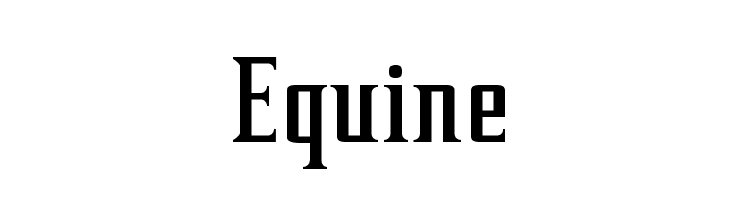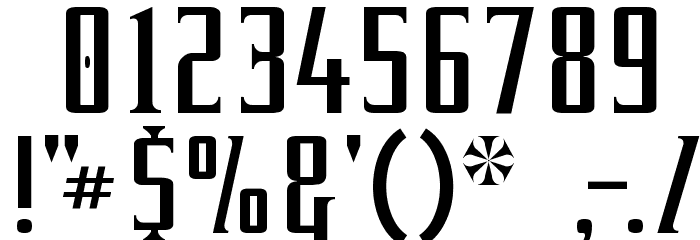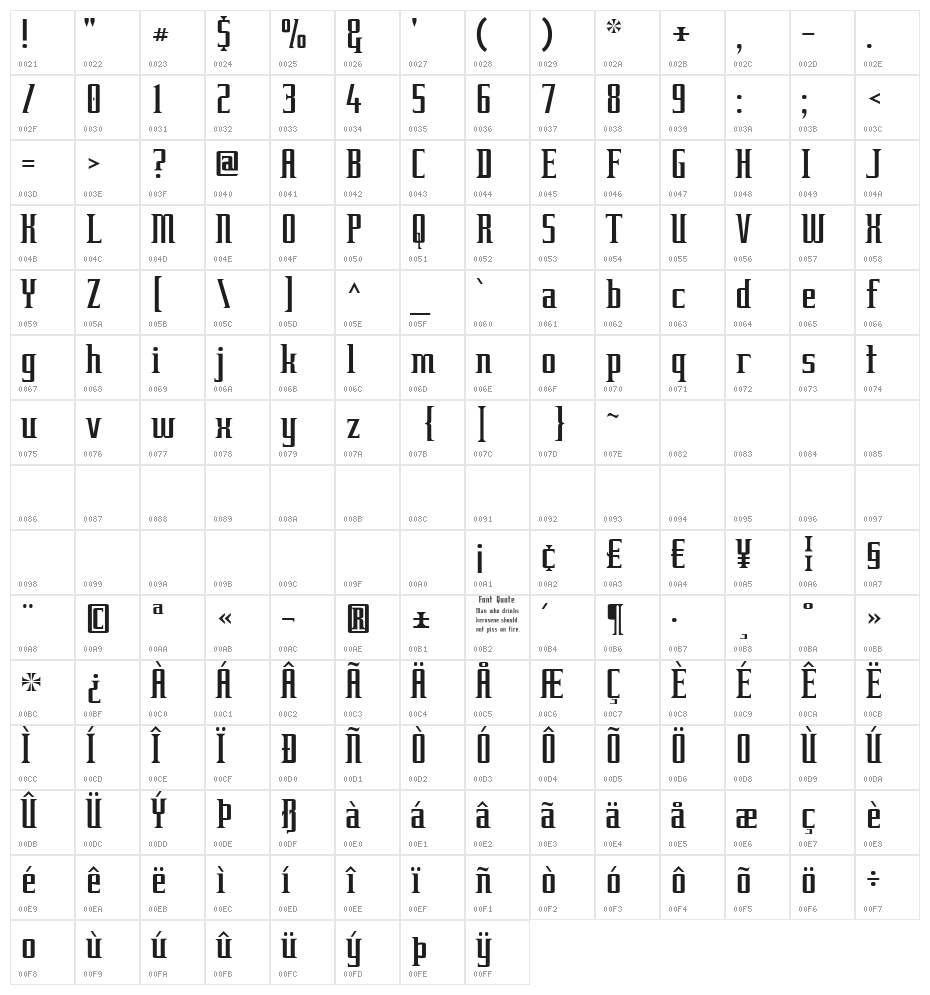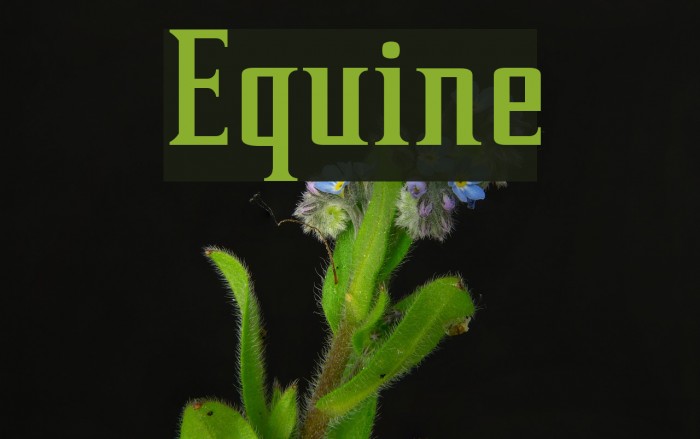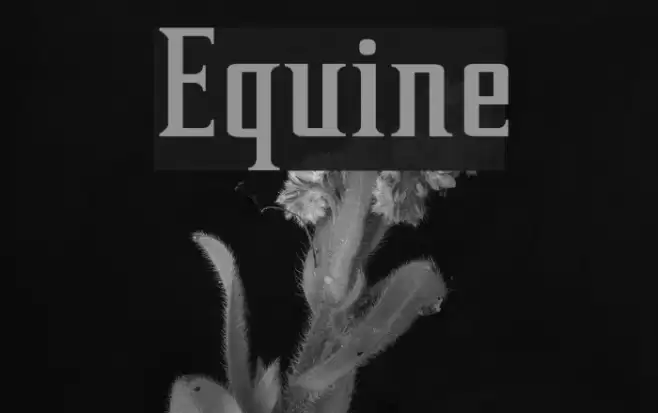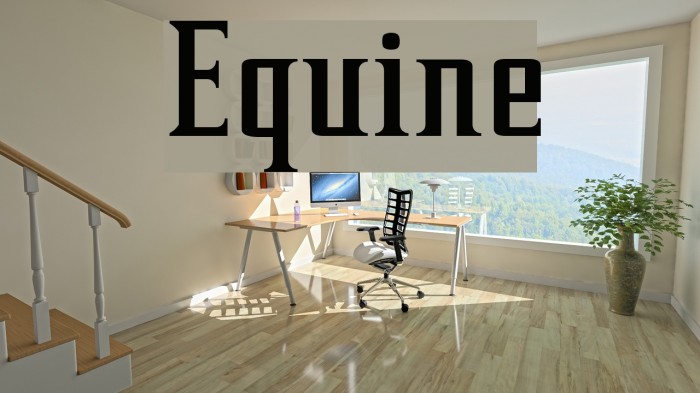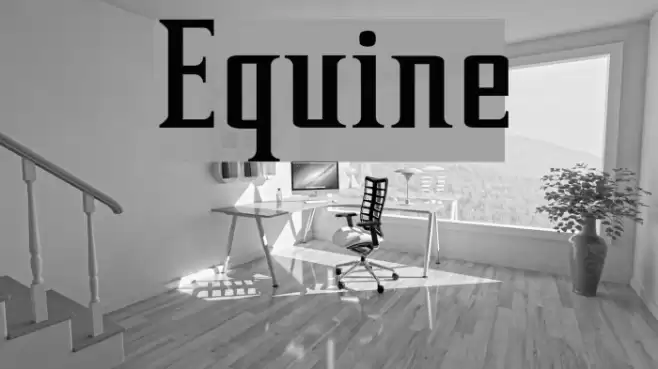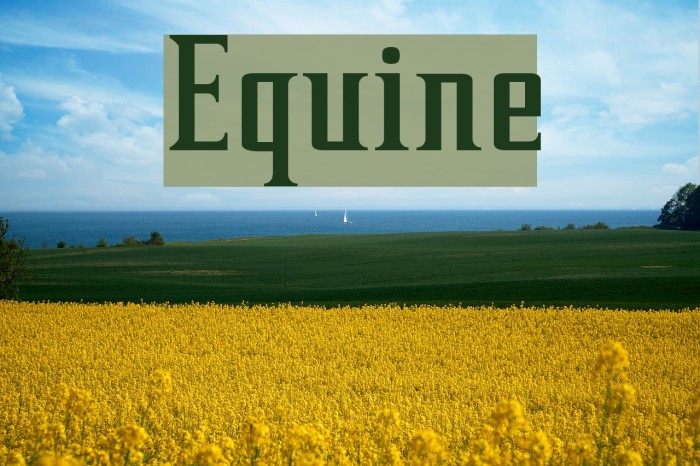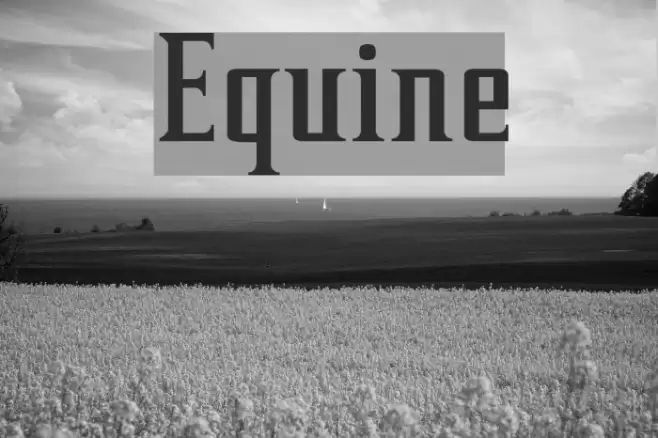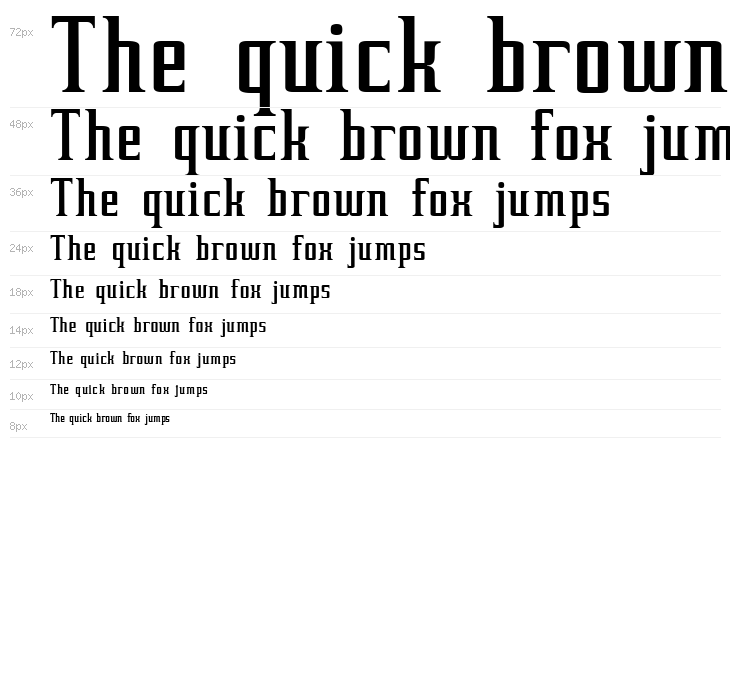
Equine Font
Equine Description
This font features a bold and striking design with a strong presence. The characters are tall and narrow, with a distinct vertical emphasis that gives them a commanding appearance. The serifs are sharp and pronounced, adding to the font's authoritative style. The uppercase letters are particularly elongated, while the lowercase letters maintain a consistent height, creating a harmonious balance. The numbers are equally bold, ensuring readability and impact. Special characters are designed with the same attention to detail, making them stand out. Overall, this font combines elements of traditional serif styles with a modern twist, making it suitable for a variety of applications.
| Proposed Projects | Ideal for headlines, posters, branding, and any project requiring a bold statement. |